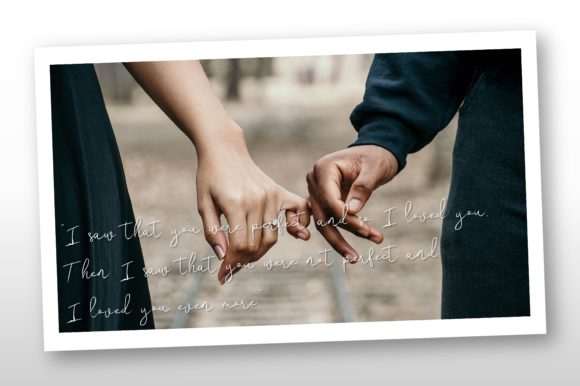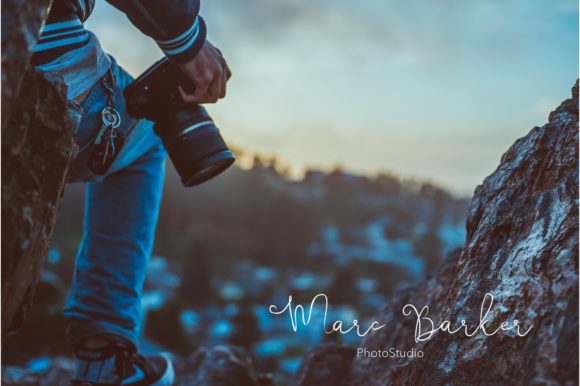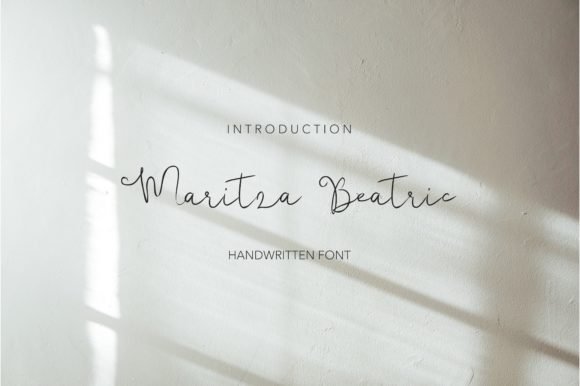
Introduction to Maritza Beatric Font
Maritza Beatric is a lovely and delicate script font that exudes elegance and class.
This font was particularly crafted for those who need a beautiful and refreshing look to their designs .